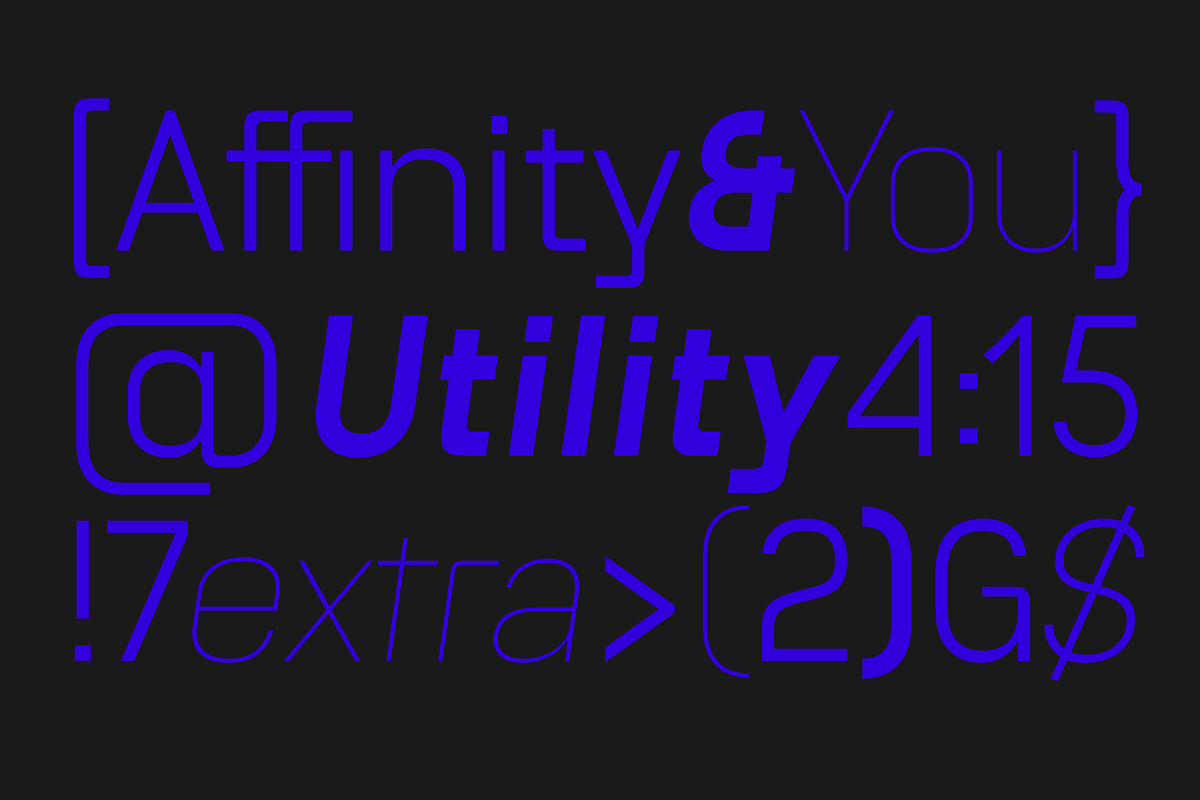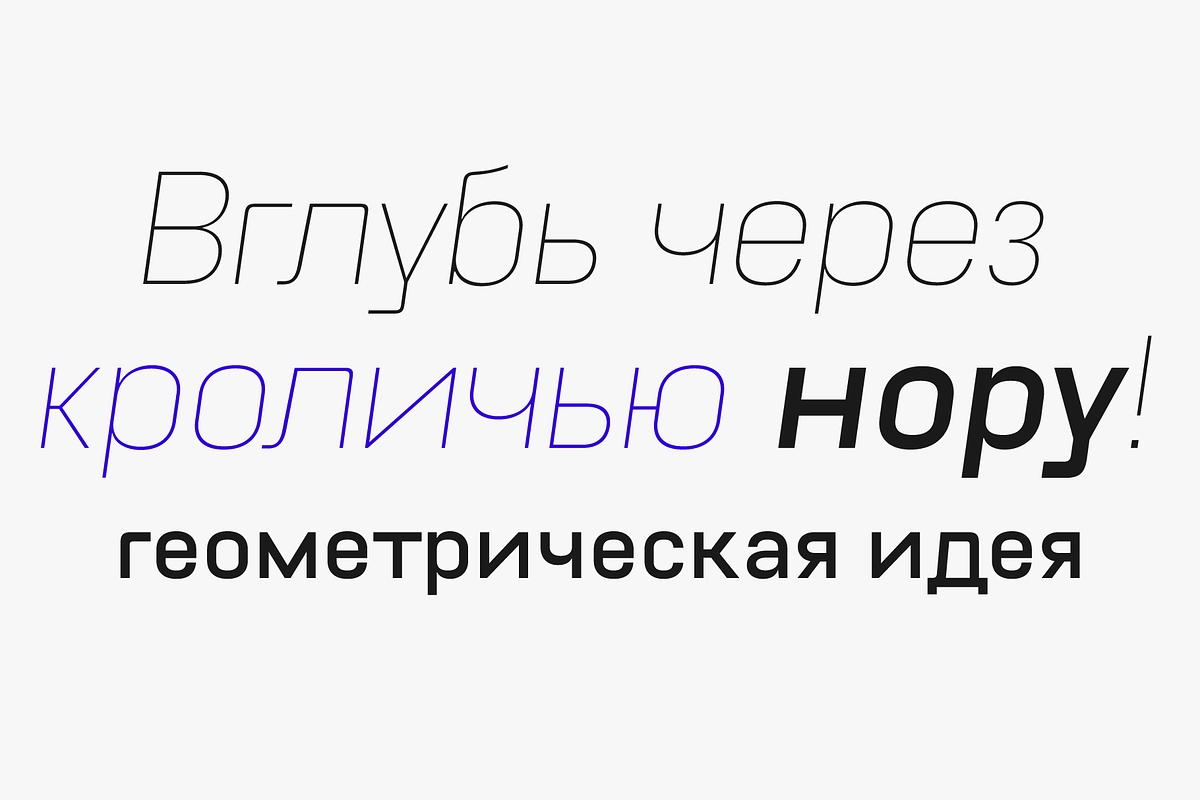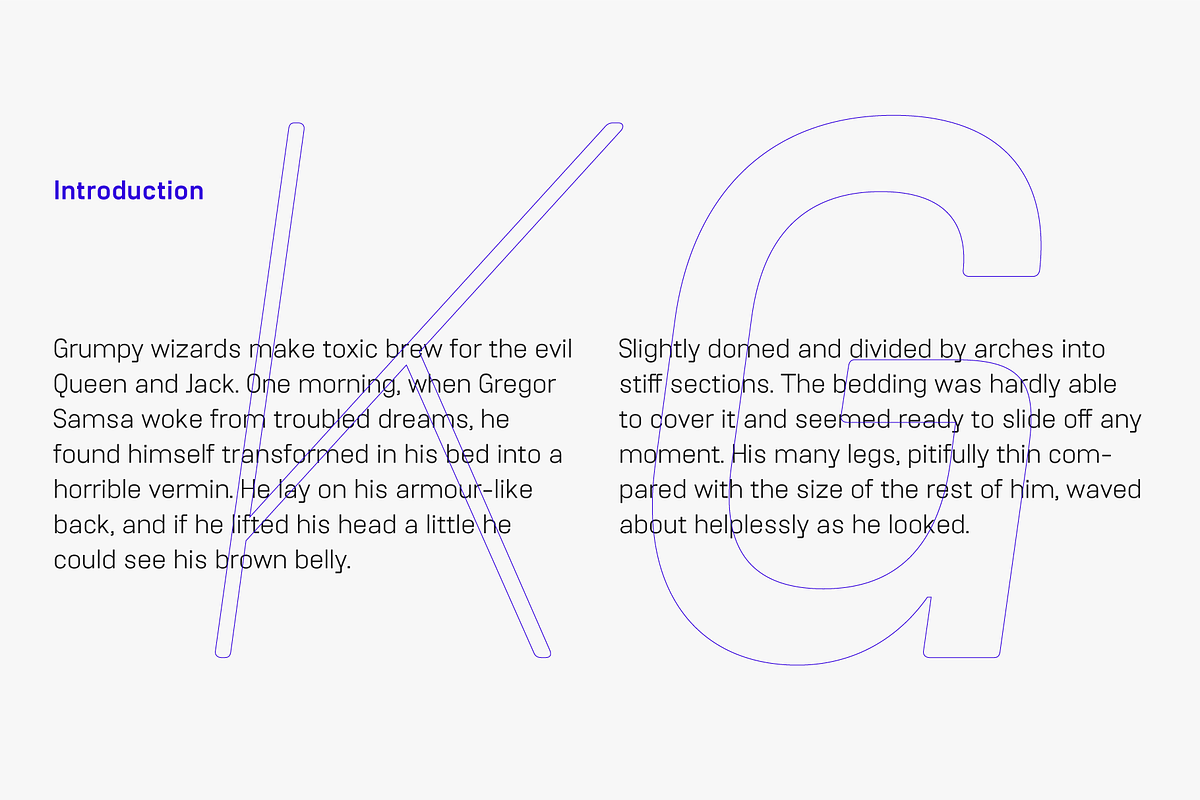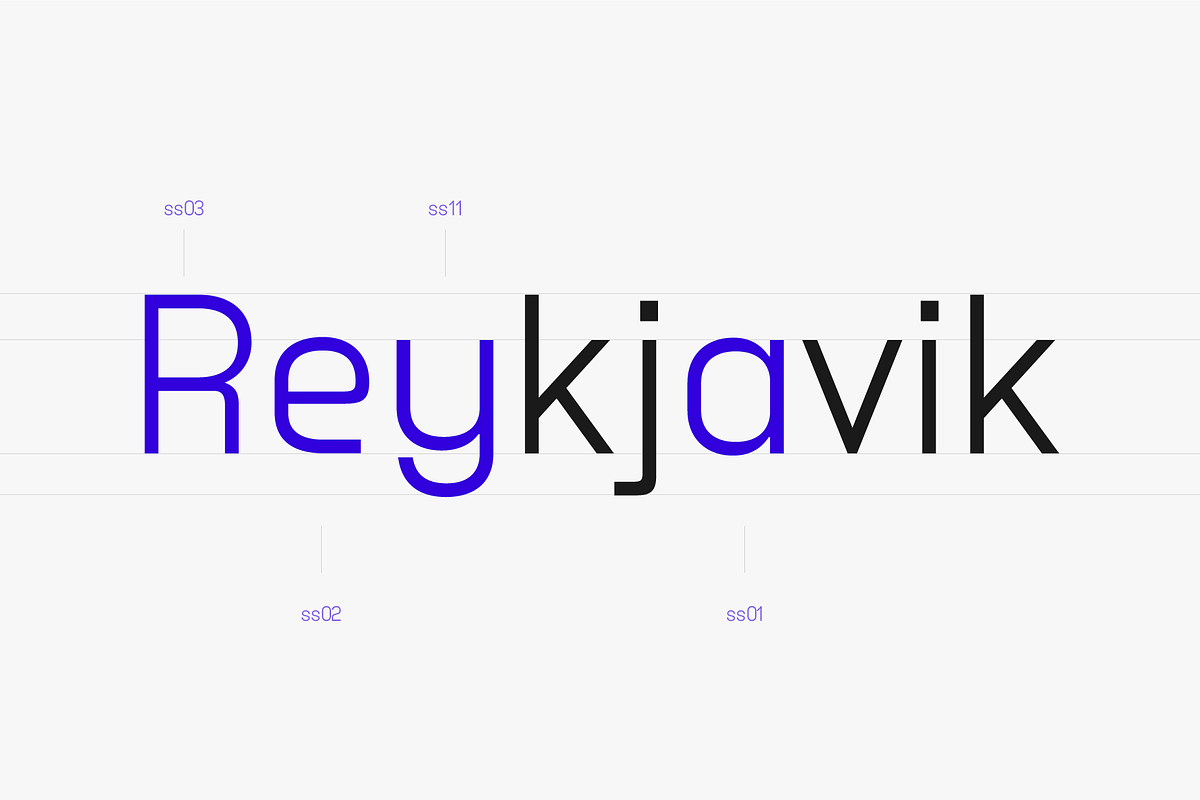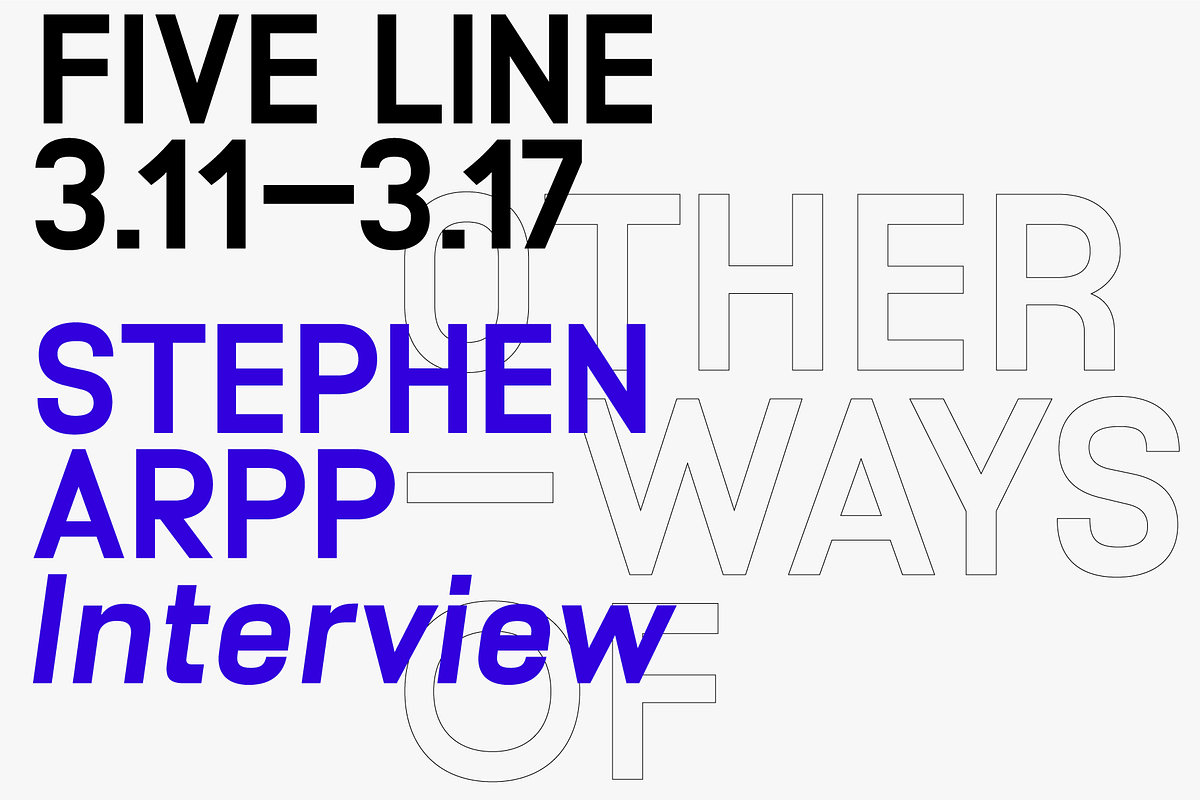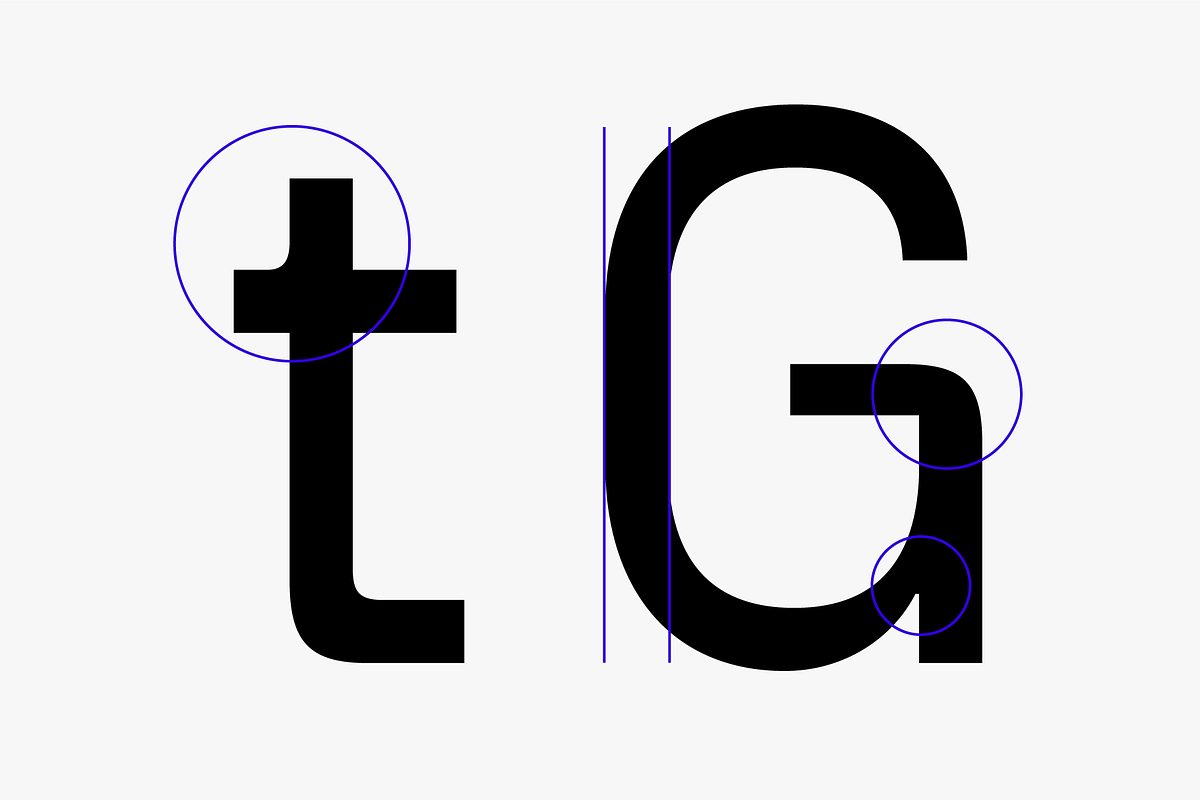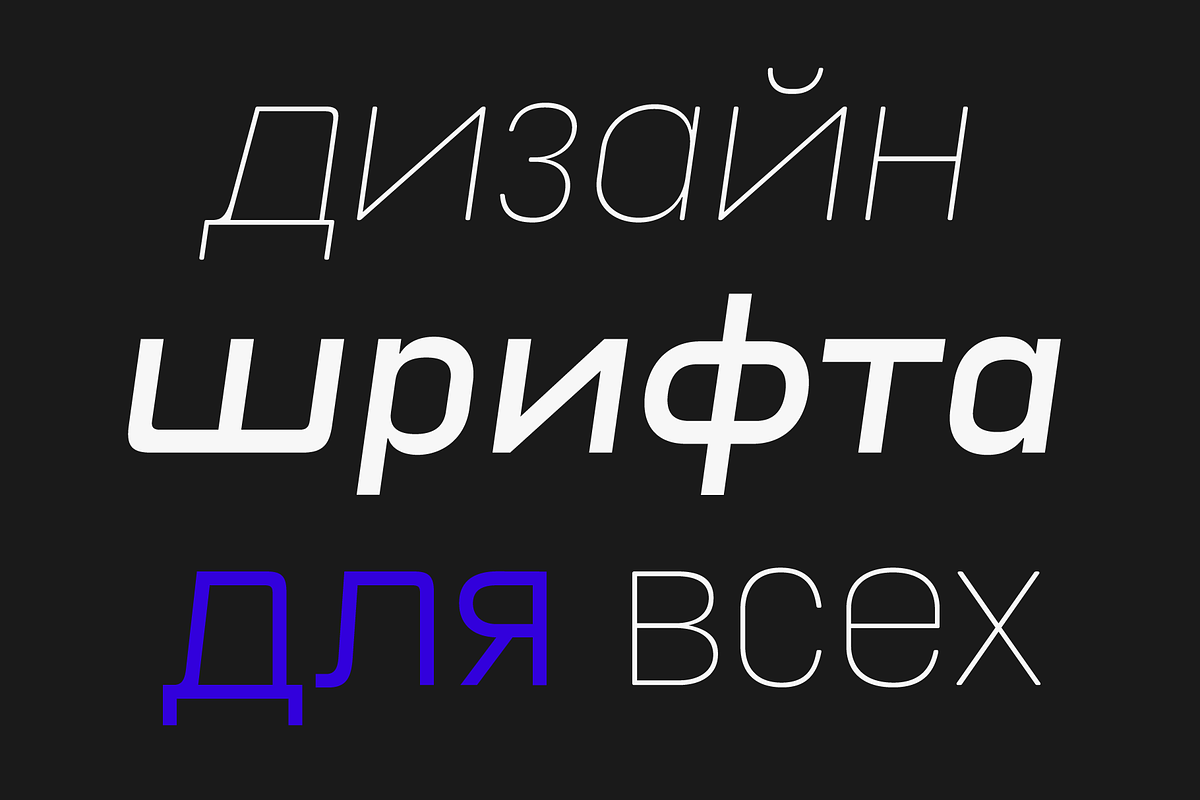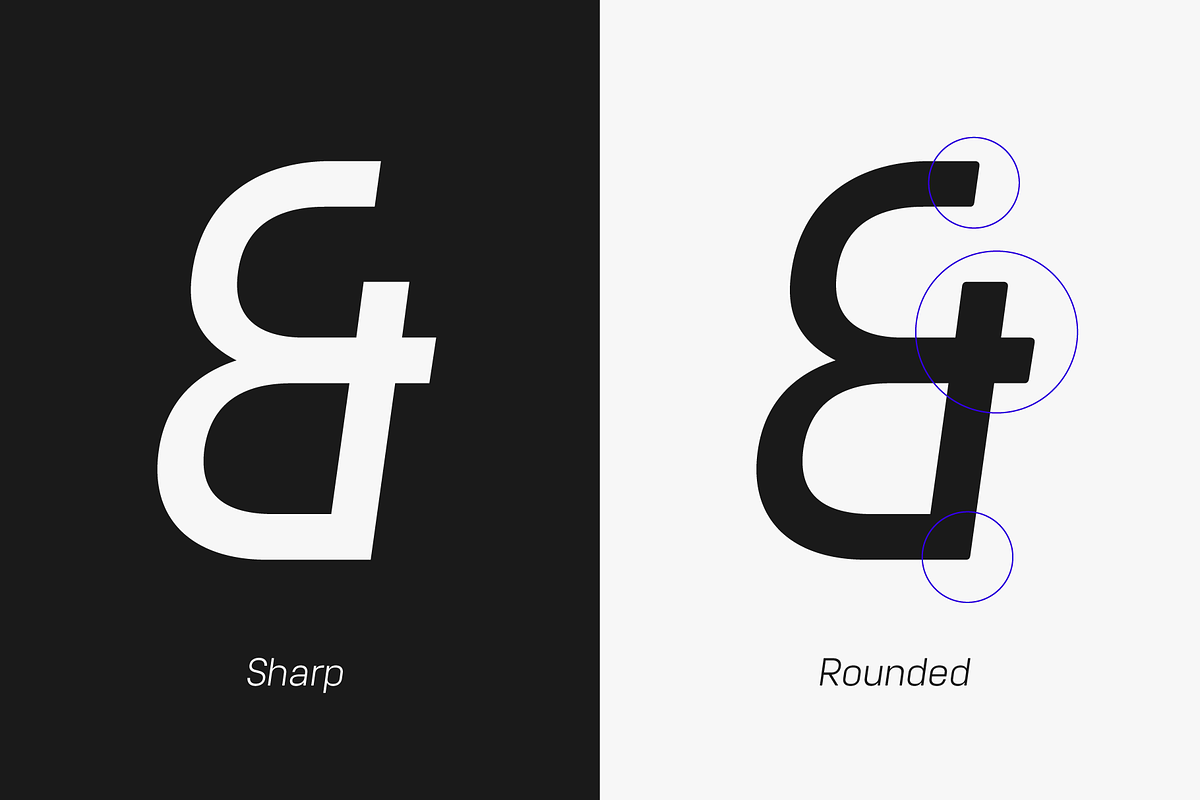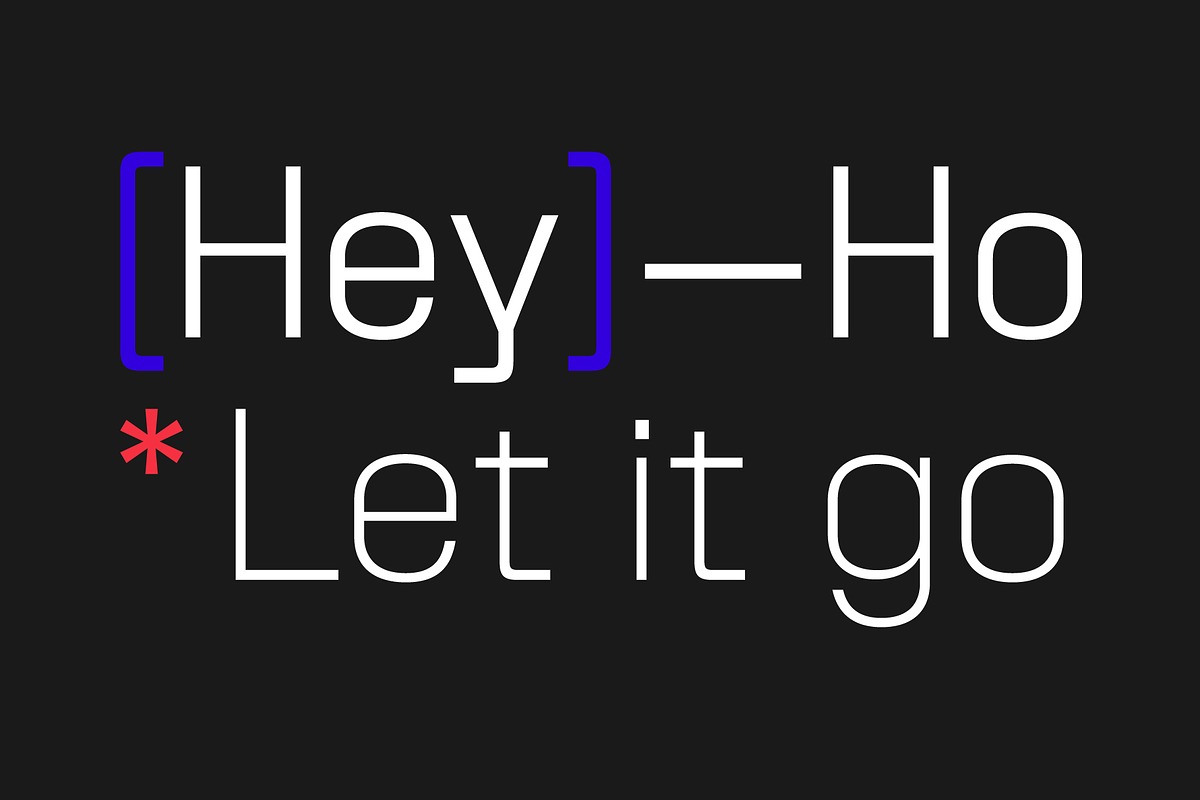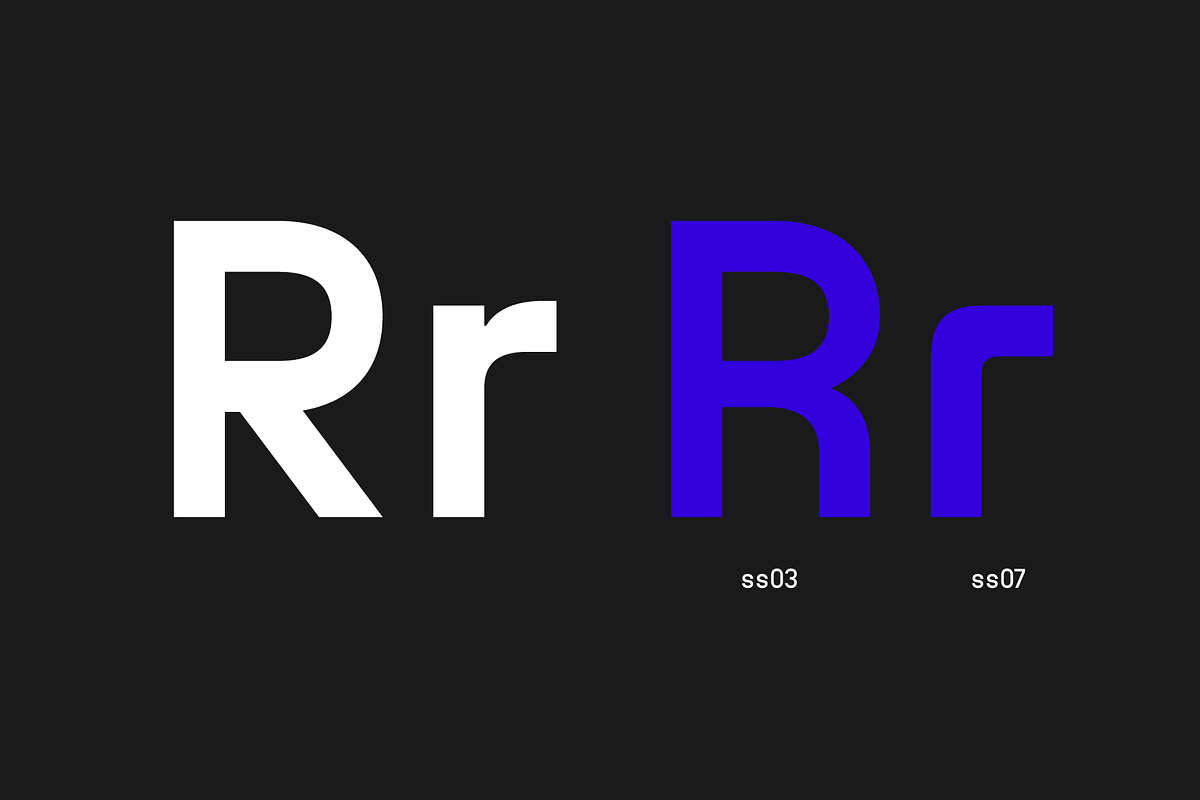
Unione
Unione by TOMO FONTS is a clean and modern sans-serif type family with a geometric touch. Available in six weights (sharp and rounded) and with their corresponding obliques. A family of 24 members, with more than 1000 glyphs per font!
The family has a wide range of language support, including Latin Plus & Cyrillic.
Check out the interesting stylistic alternates Unione has for you.
- Geometric and modern Sans-Serif
- 28 styles
- 1000 glyphs per font.
- Latin Plus support, Extended Latin
- Cyrillic support, Basic & Extended
- Fractions
- Circled Numerals & Letters
- Lots of Stylistic Alternates